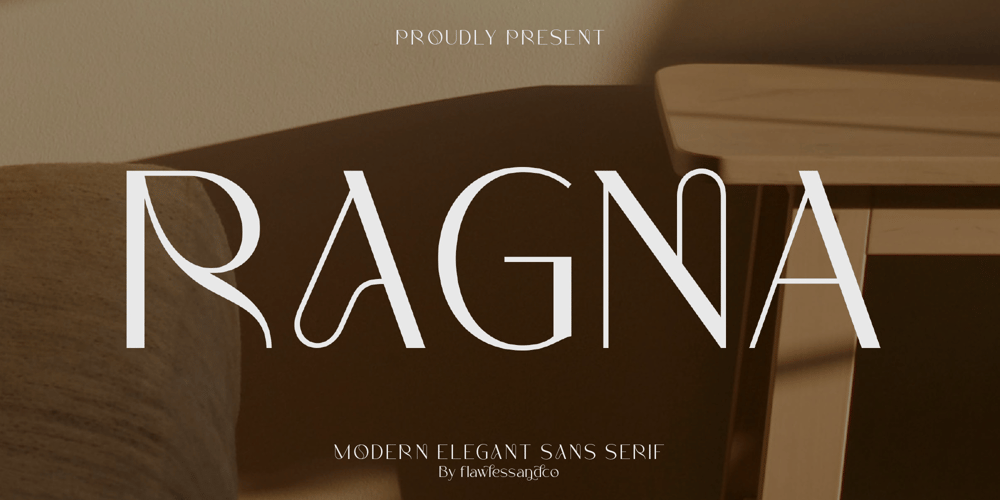
Ragna Font Family was designed by Achmad Yani and published by Flawlessandco. Ragna contains 1 styles and family package options. Introducing “Ragna” – A Modern Elegant Sans Serif Font. Experience the pinnacle of modern elegance with “Ragna,” a sleek and refined sans serif font that not only exudes contemporary sophistication but also offers a rich set of alternatives and ligatures to elevate your design versatility.There’s some connected letters and some alternates that suitable for any graphic designs such as branding materials, t-shirt, print, business cards, logo, poster, t-shirt, photography, quotes .etcThis font support for some multilingual. Also contains uppercase A-Z and lowercase a-z, alternate character, numbers 0-9, and some punctuation.If you need help, just write me! Thanks so much for checking out my shop!